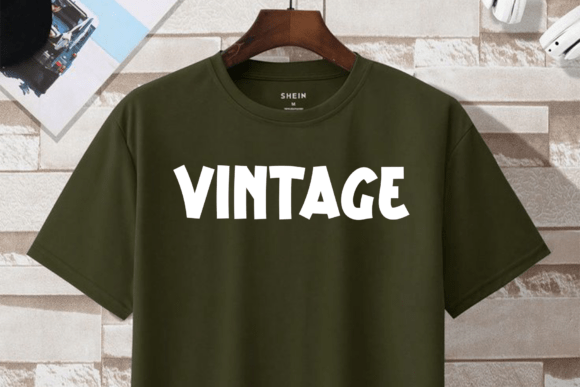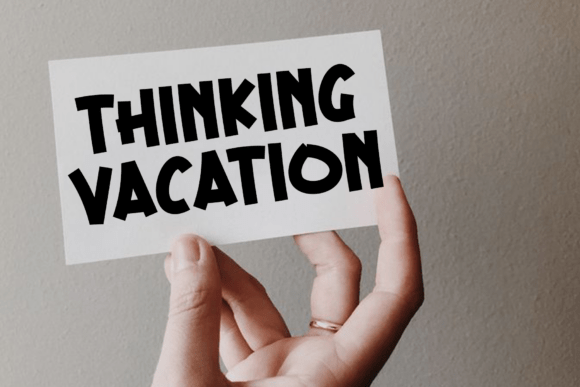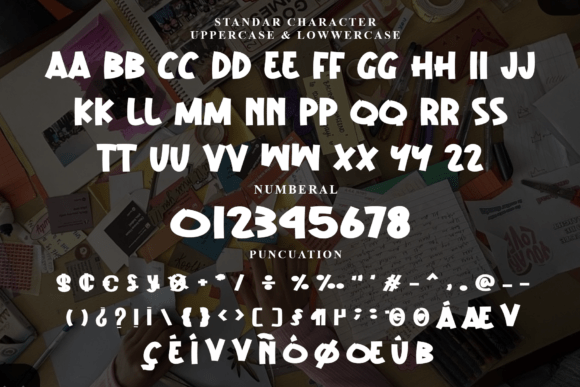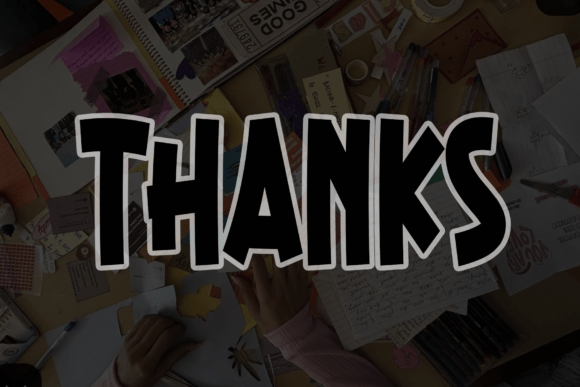
Unlock Your Imagination with Creativity Font
Are you a designer, crafter, or DIY enthusiast looking for a font that can add a playful, handmade touch to your digital projects? Look no further than Creativity, a bold, high-energy handwritten display font that’s perfect for bringing a spark of imagination to your designs. In this article, we’ll explore the unique features of Creativity Font and how it can elevate your branding projects, digital art, and crafty creations.
The Inspiration Behind Creativity Font
Creativity Font is designed to capture the spontaneous joy of a scrapbooking session or a creative DIY project. Its irregular, hand-cut letterforms wrapped in a neat, stylish inline contour stroke give it a unique, handcrafted feel that’s perfect for crafty designs. The font’s blocky, heavy presence ensures that your titles leap off the page with a fun, handmade spirit that’s sure to connect with crafters and creators alike.
Key Features of Creativity Font
- Bold and High-Energy Design: Creativity Font is designed to make a statement with its bold, high-energy design that’s perfect for headlines, titles, and other display text.
- Handwritten Display Font: With its irregular, hand-cut letterforms, Creativity Font has a unique, handwritten feel that’s perfect for adding a personal touch to your designs.
- Inline Contour Stroke: The font’s inline contour stroke adds a stylish, sophisticated touch to its handcrafted design.
- Blocky and Heavy Presence: Creativity Font’s blocky, heavy presence ensures that your titles stand out with a fun, handmade spirit.
- Perfect Balance of Thick Visual Weight and Friendly Readability: The font strikes a perfect balance between thick visual weight and friendly readability, making it a remarkably versatile design asset.
Use Cases for Creativity Font
Creativity Font is an exceptional choice for a wide range of design projects, including:
- DIY Craft Blogs: Add a playful, handmade touch to your blog headers, titles, and other design elements.
- Custom Sticker Designs: Create eye-catching sticker designs that stand out with Creativity Font’s bold, high-energy design.
- Quirky T-Shirt Graphics: Add a fun, handmade touch to your t-shirt designs with Creativity Font’s unique, handwritten feel.
- Children’s School Poster Headlines: Create engaging, attention-grabbing headlines for school posters and flyers.
- School Event Flyers: Add a playful, creative touch to your school event flyers with Creativity Font.
- Playful Product Packaging: Give your product packaging a burst of authentic, artistic personality with Creativity Font.
Why Choose Creativity Font?
Creativity Font is more than just a font – it’s a design asset that can elevate your branding projects and add a touch of handmade personality to your digital art. With its unique, handcrafted design and versatile use cases, Creativity Font is perfect for:
- Designers: Looking for a font that can add a playful, handmade touch to their designs.
- Crafters: Seeking a font that can capture the spirit of their DIY projects.
- DIY Enthusiasts: Wanting to add a creative, artistic touch to their digital projects.
Creativity Font is a bold, high-energy handwritten display font that’s perfect for bringing a spark of imagination to your digital projects. With its unique, handcrafted design and versatile use cases, it’s an exceptional choice for designers, crafters, and DIY enthusiasts alike. Unlock your imagination with Creativity Font and give your branding projects a burst of authentic, artistic personality that instantly connects with crafters and creators alike!